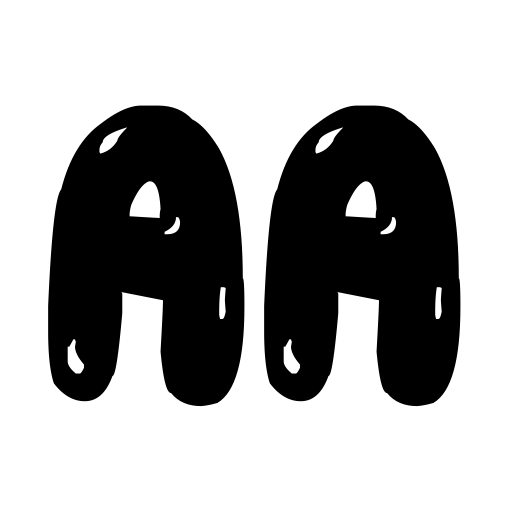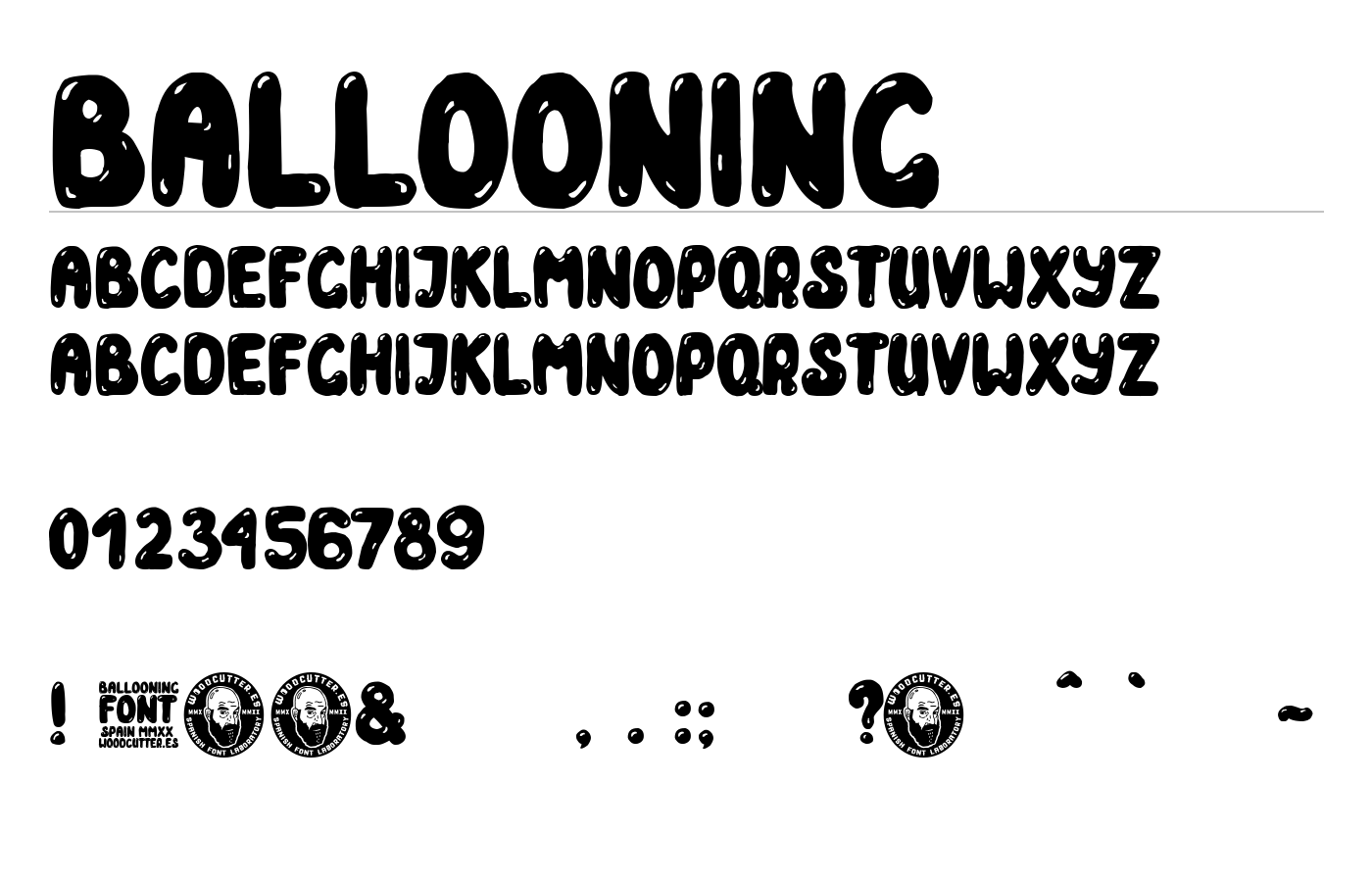
Ballooning is a playful, bold display font featuring rounded, balloon-like letterforms that give it a fun and friendly vibe. Its thick, bubbly shapes with subtle highlights make it perfect for eye-catching headlines, logos, and creative projects aimed at a youthful or whimsical audience. This font works best in informal contexts where a lively and approachable style is desired.
Ballooning Font
About Ballooning Font